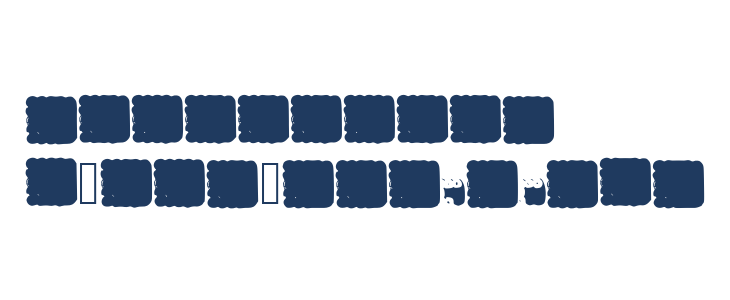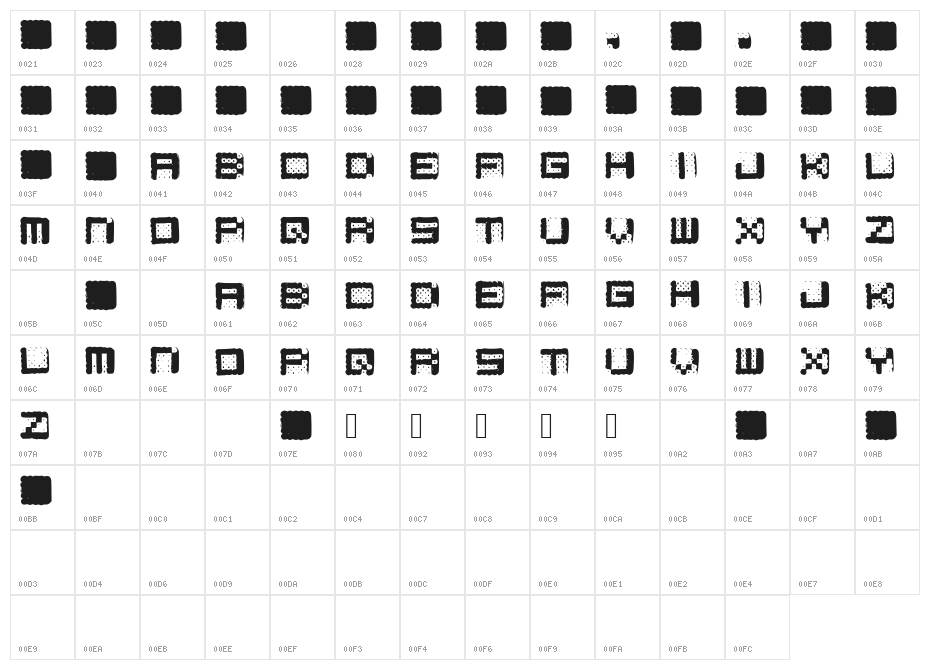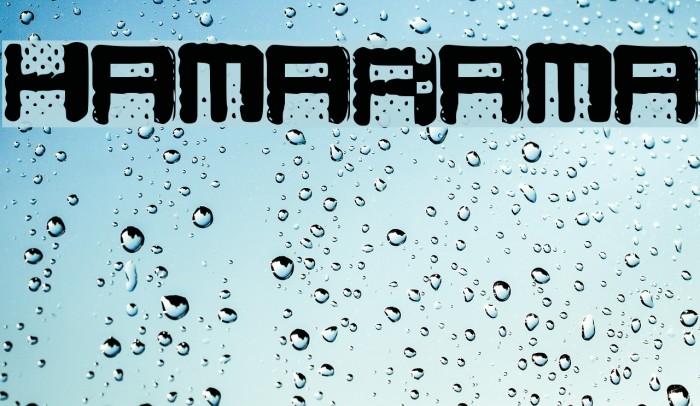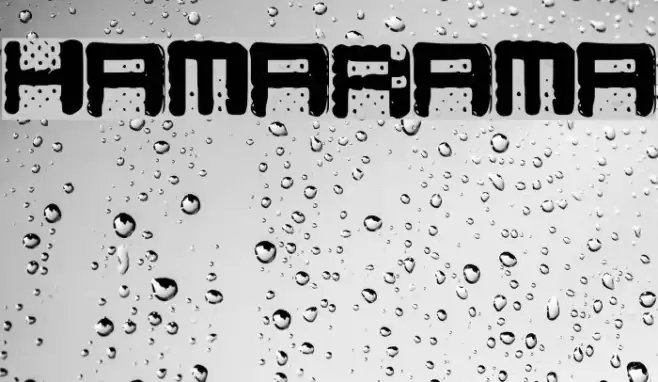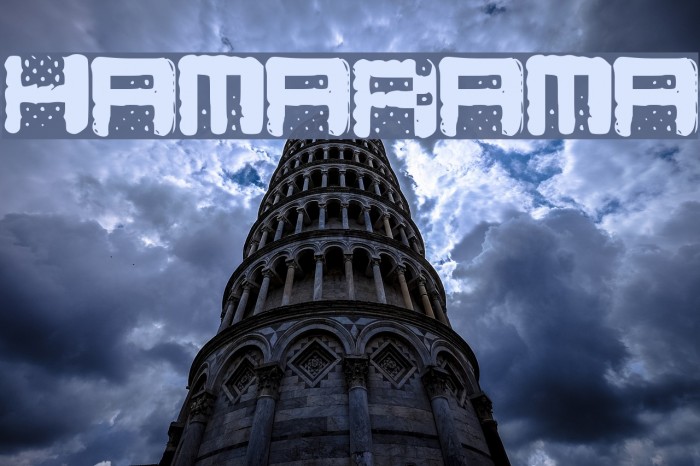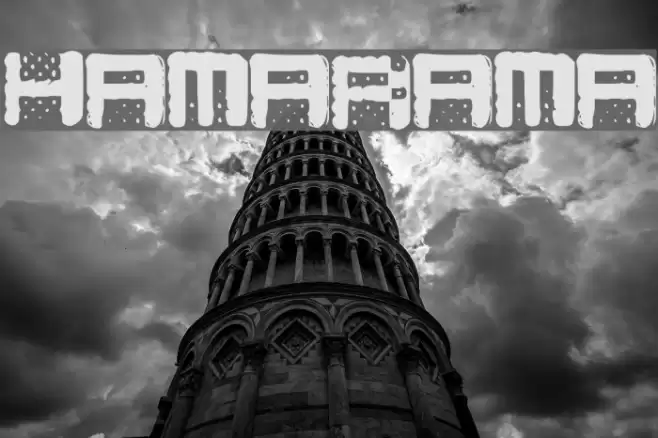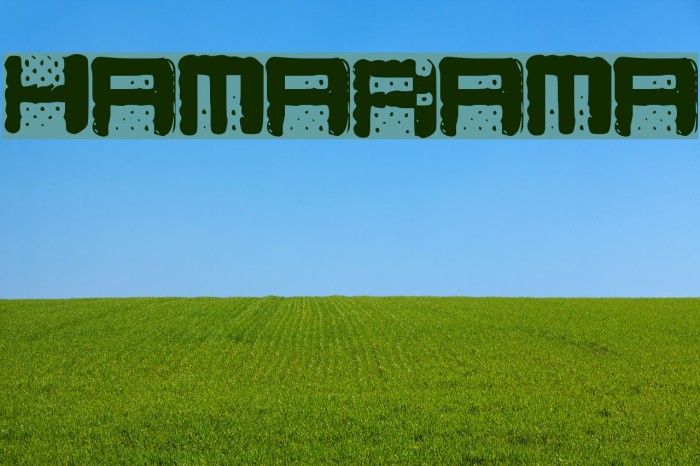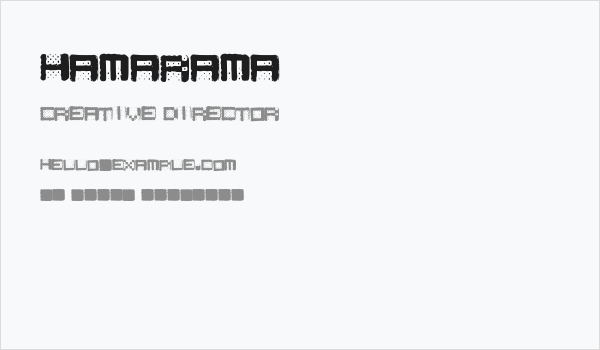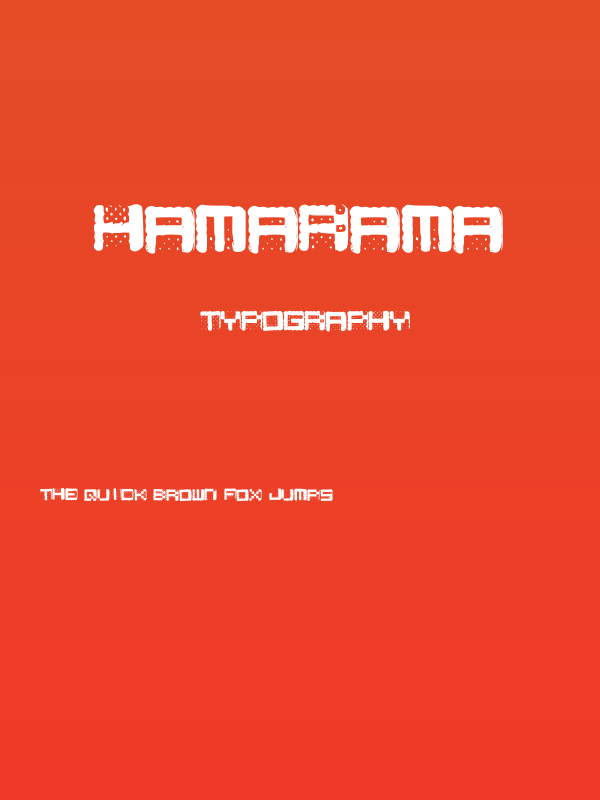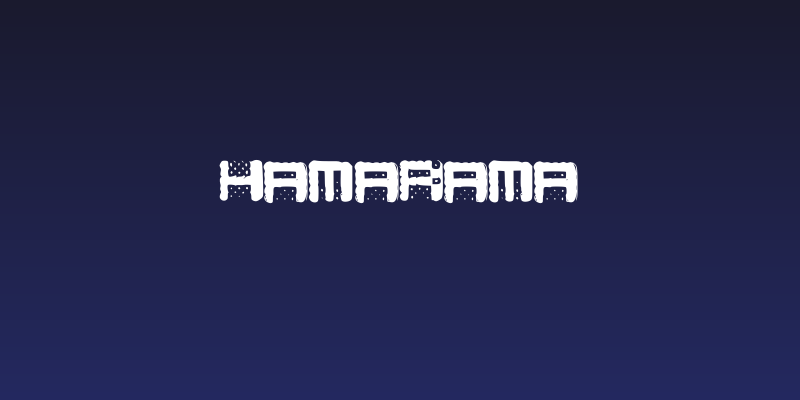
Hamarama Font
Hamarama Description
This font features a bold, decorative style with a unique dotted pattern filling the interior of each character. The edges are rounded, giving it a playful and modern appearance. The uppercase letters are consistent in height and width, creating a uniform look across the alphabet. The characters are enclosed in a thick outline, enhancing their visibility and making them stand out. The font is highly stylized, with a distinct retro-futuristic vibe, suitable for eye-catching designs. Its unique texture and bold presence make it ideal for creative projects that require a standout typeface.
| Proposed Projects | Ideal for posters, album covers, video game graphics, and branding that requires a bold, unique typeface. |